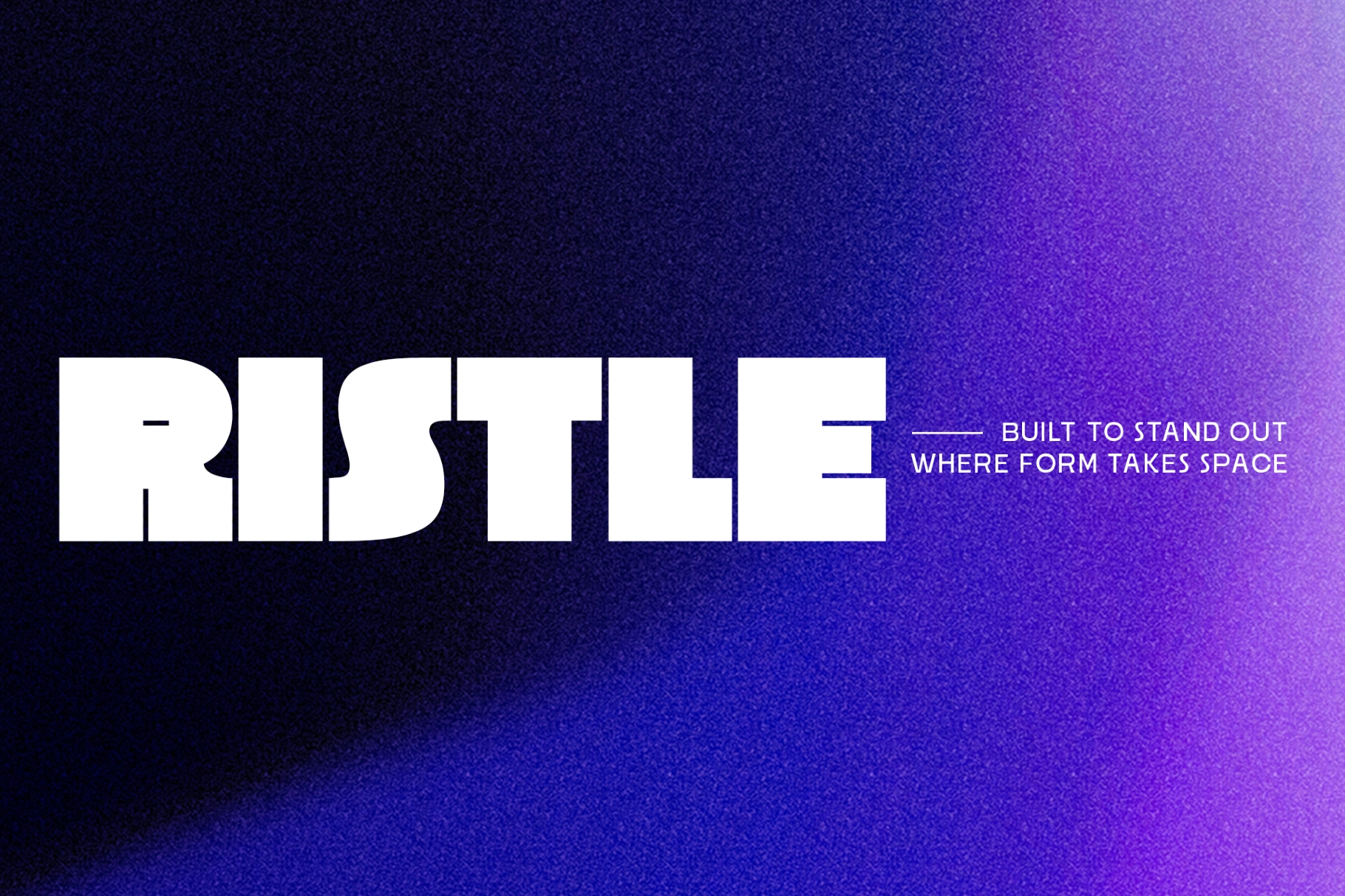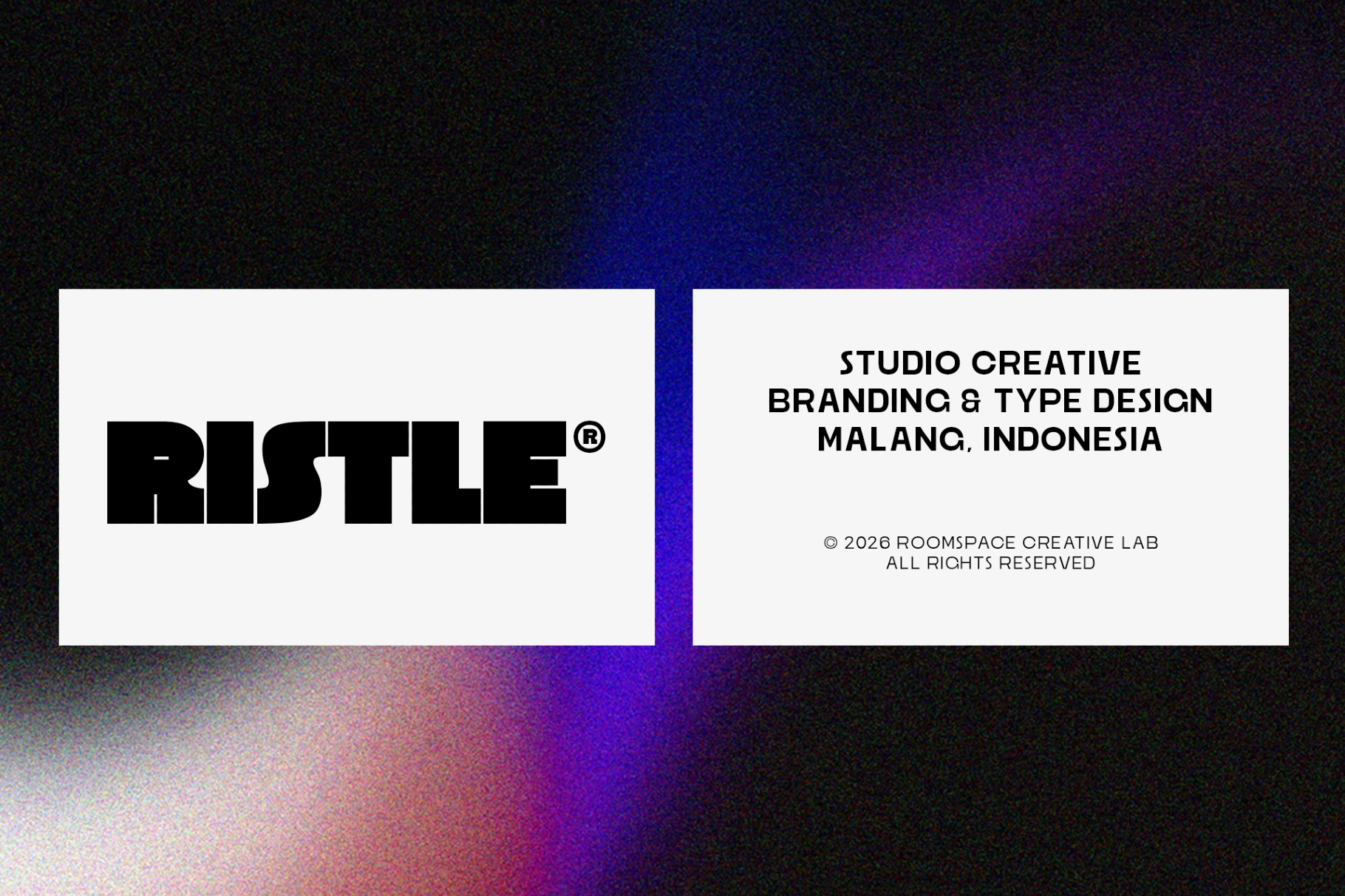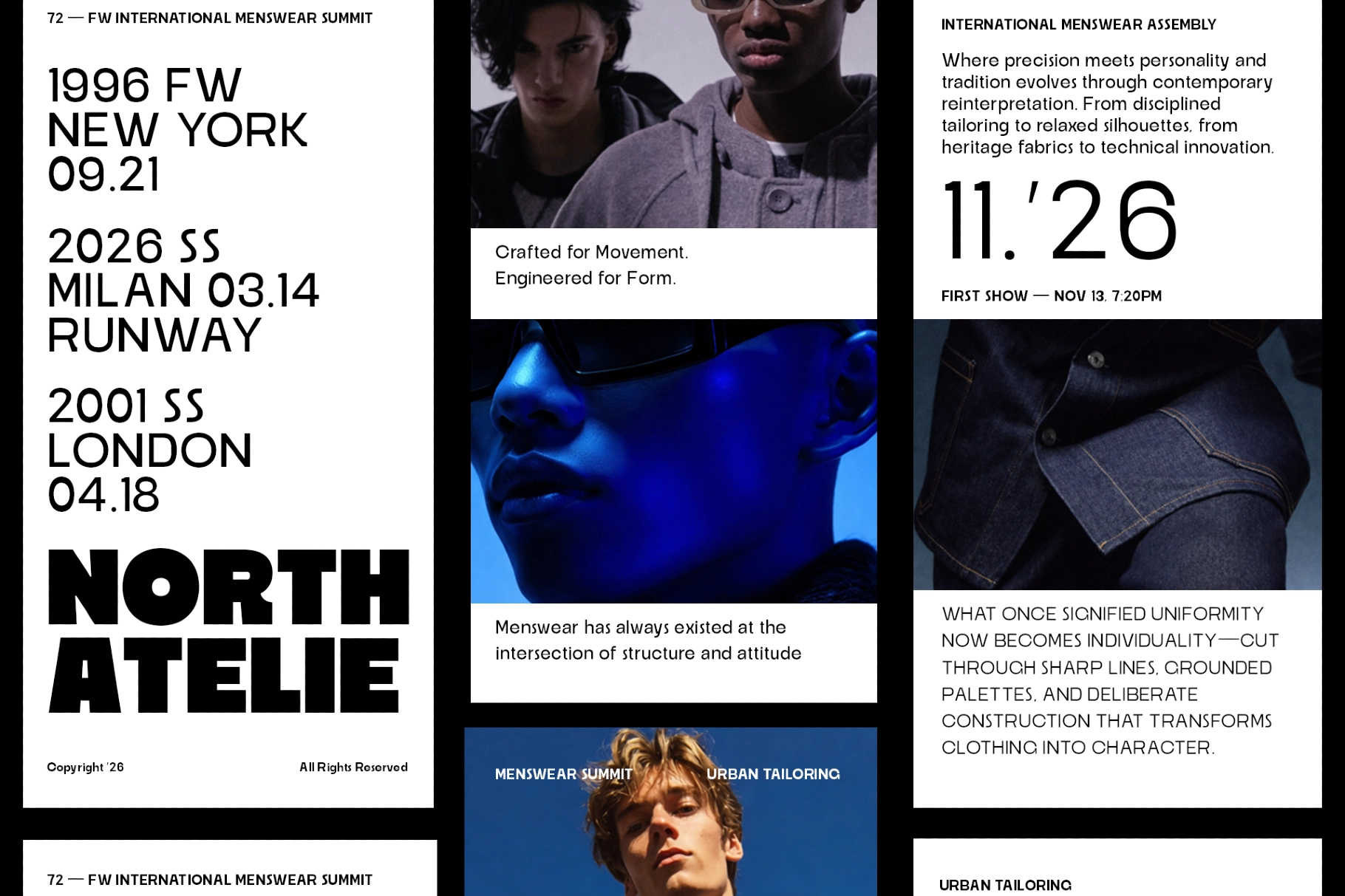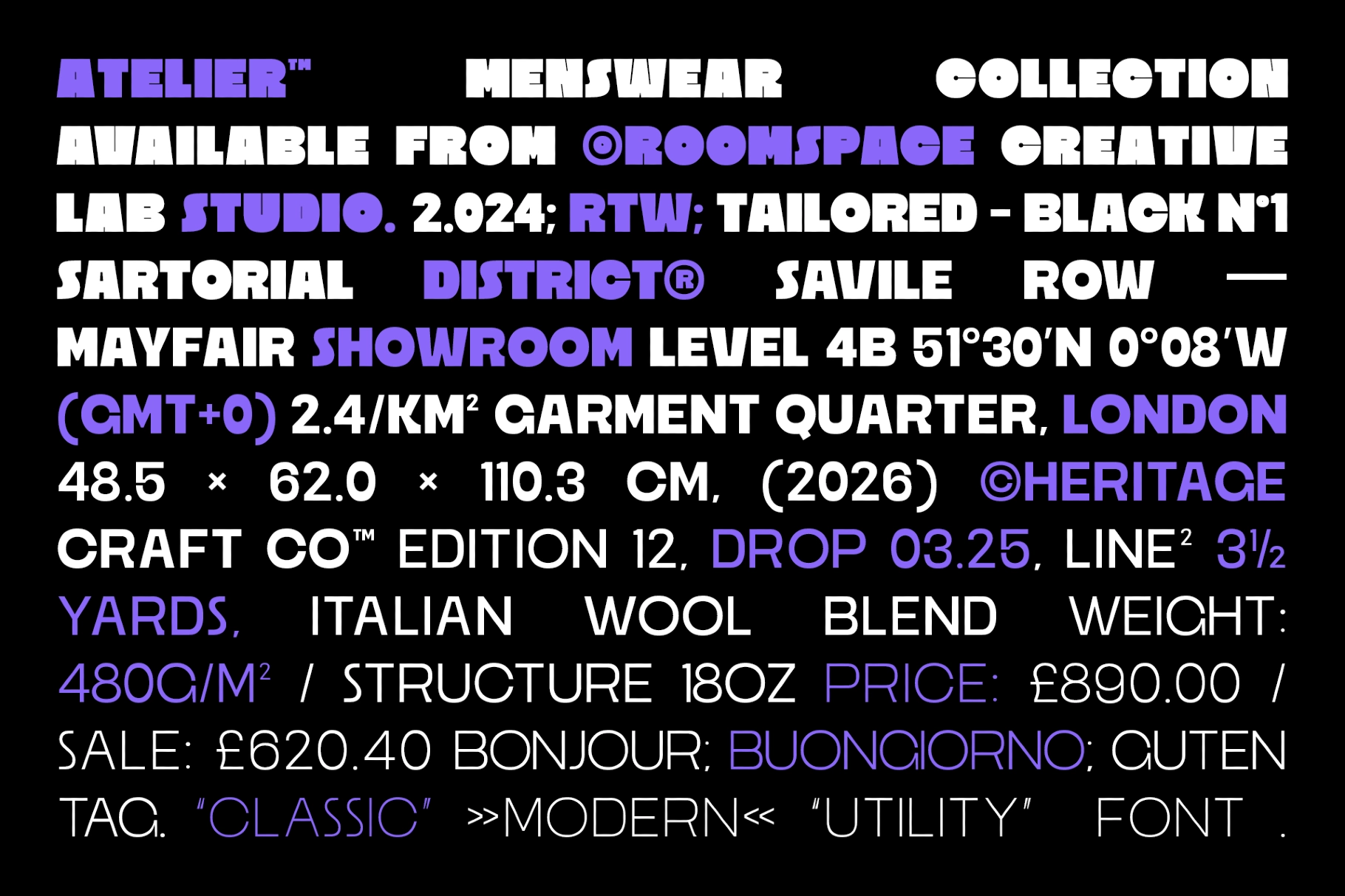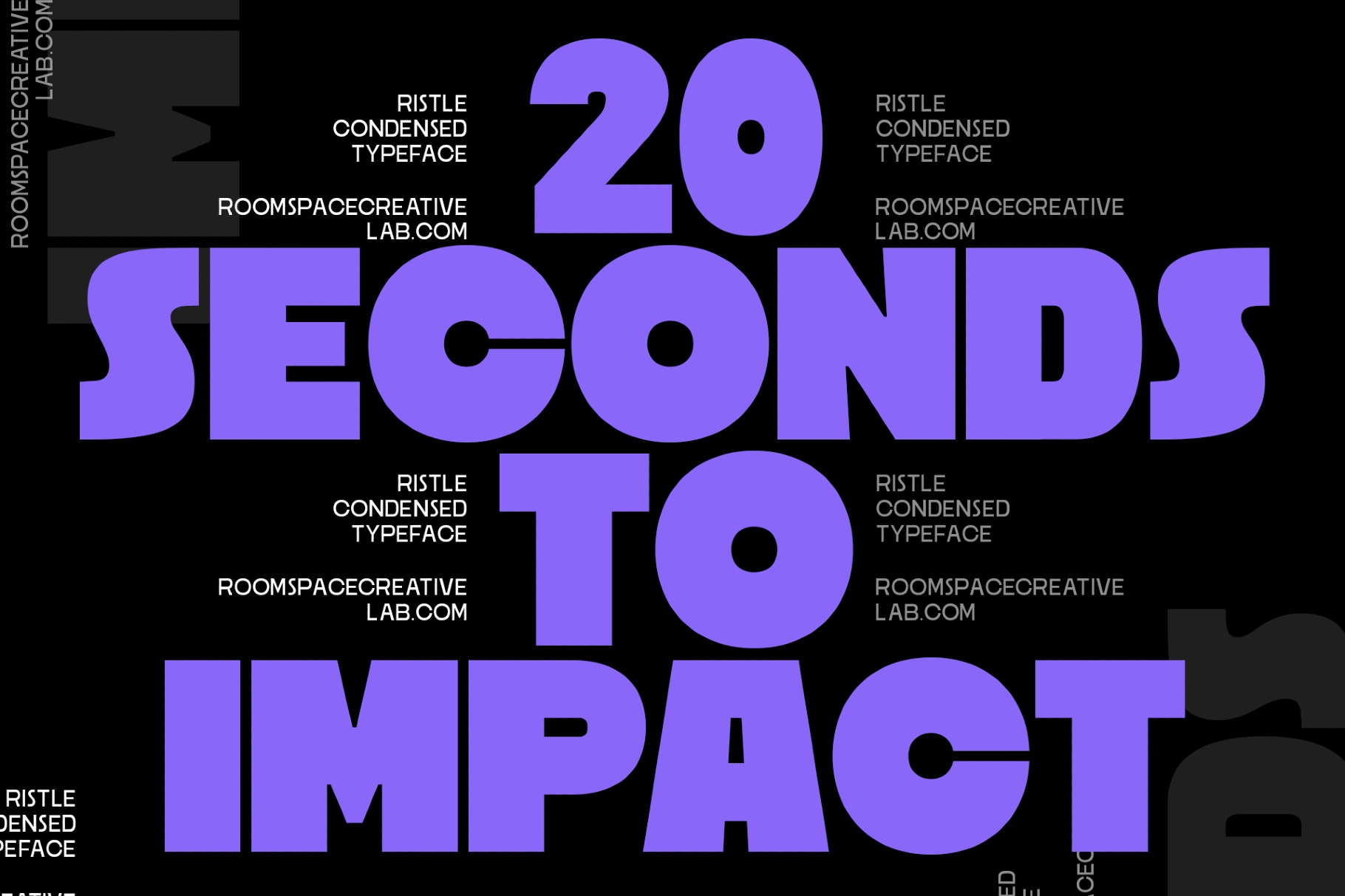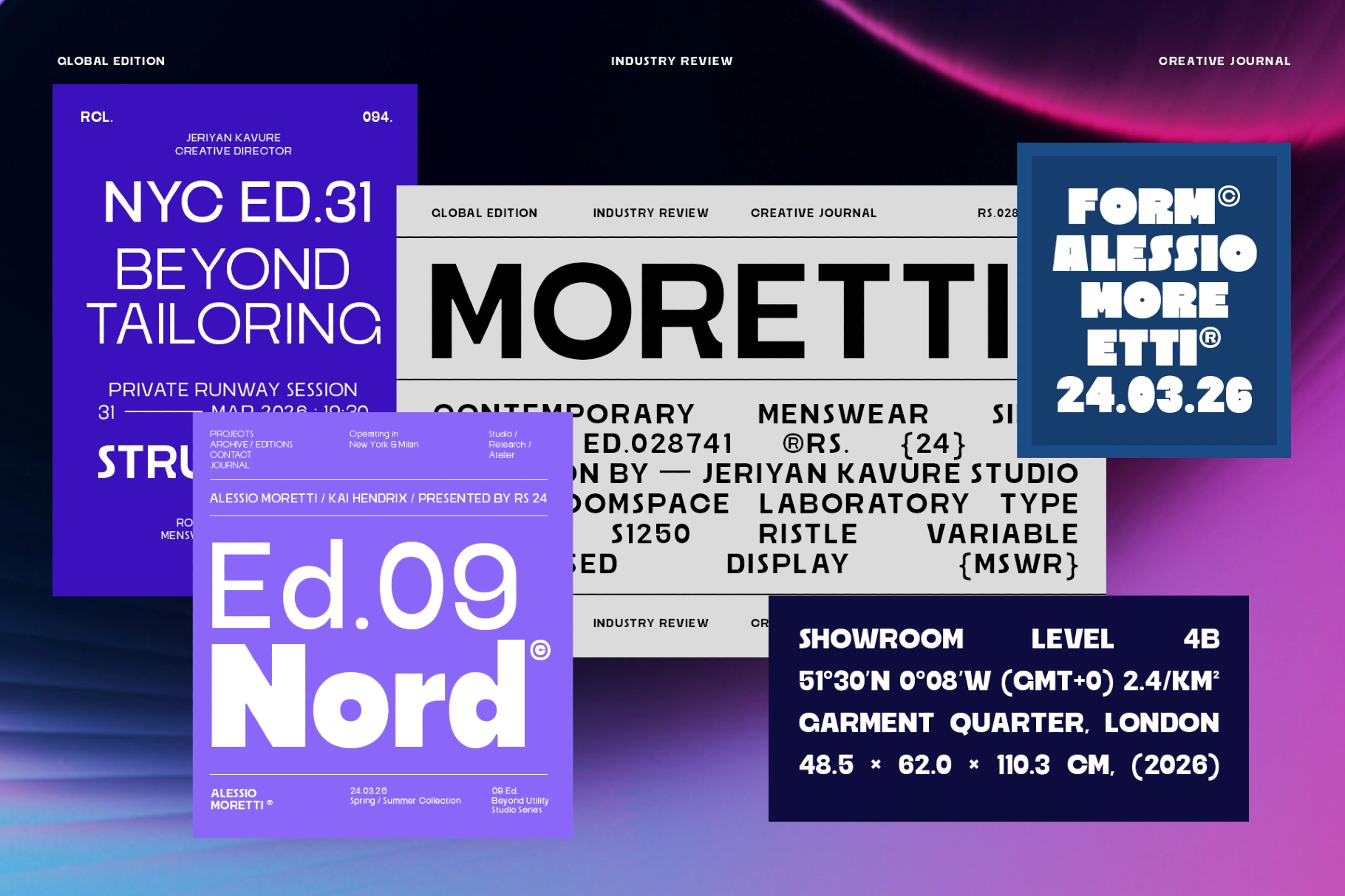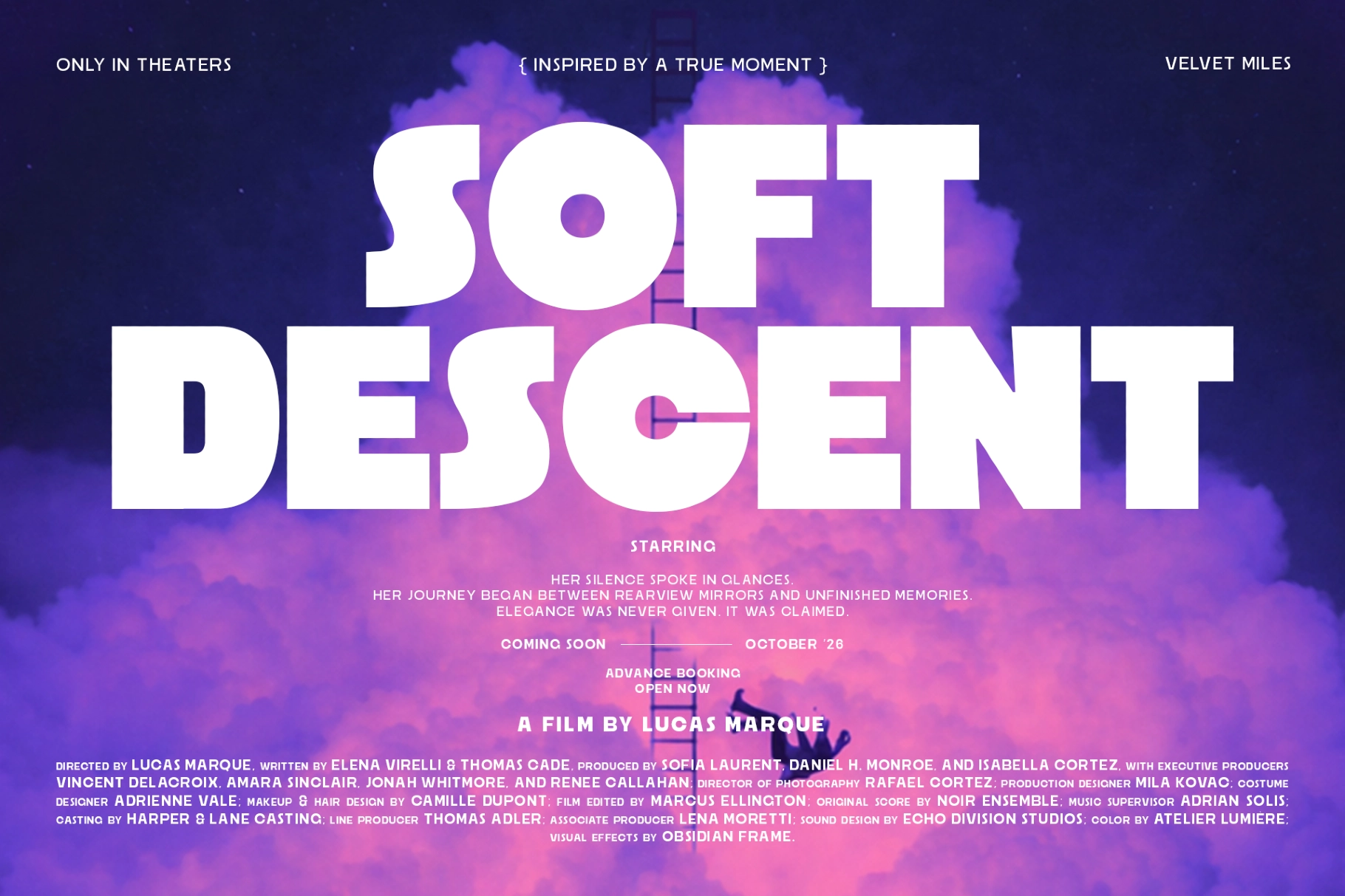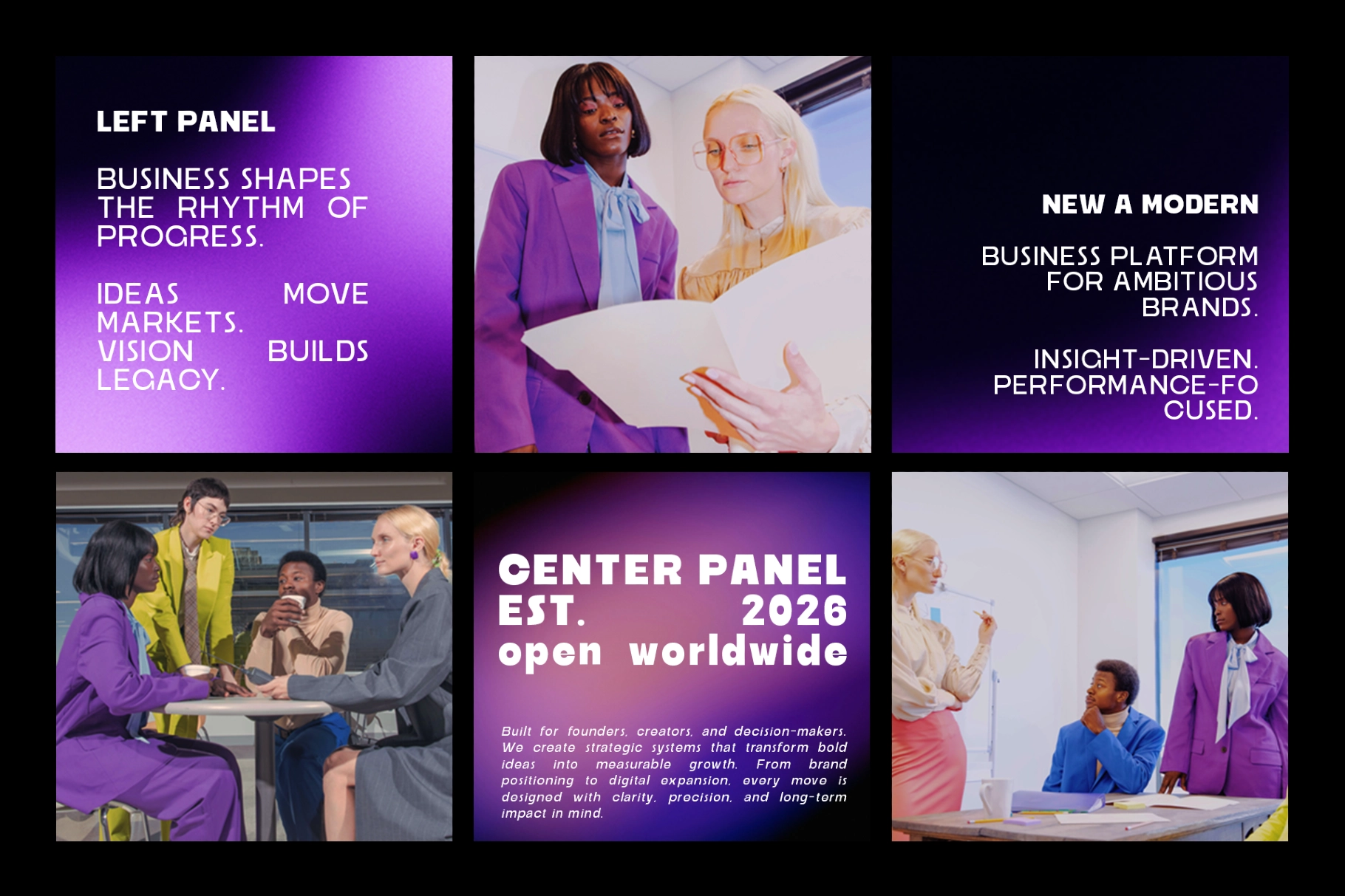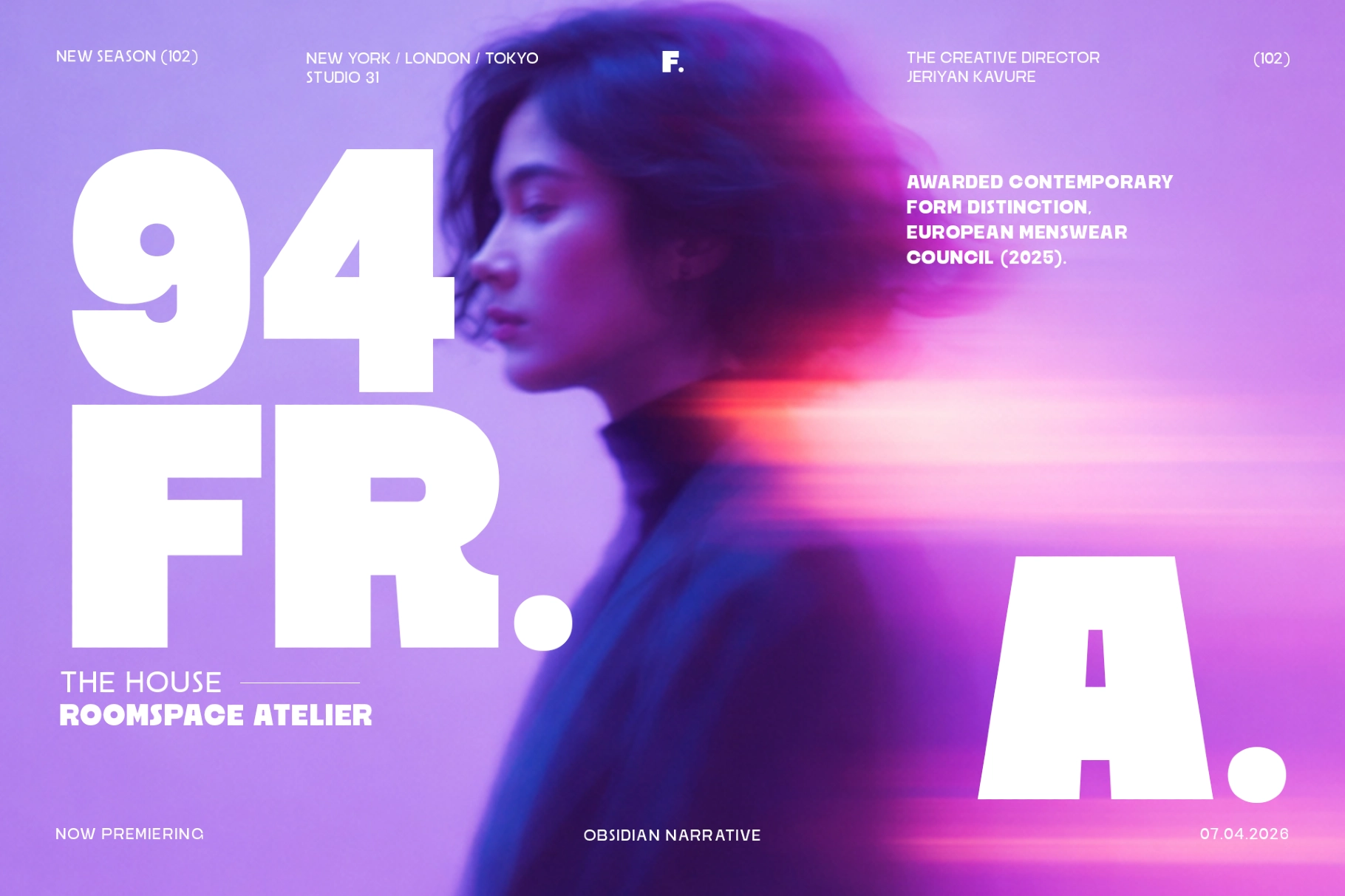
Ristle – Bold Modern Display Sans Font
This bold display font is designed for direct visual pressure: heavy shapes, clean geometry, and a full weight range that moves from thin editorial lines to dense headline blocks. Wide letterforms and disciplined spacing give it a clear, architectural voice for branding systems that need strength without decorative noise.
Ristle works for logo design, corporate identity, fashion campaigns, posters, packaging, editorial headlines, digital ads, landing pages, product launches, film titles, tech branding, streetwear graphics, presentation covers, event promos, and large-format signage. The lighter weights are crisp for captions and supporting text, while the heaviest cuts bring full-volume impact to titles, hero sections, and poster compositions.